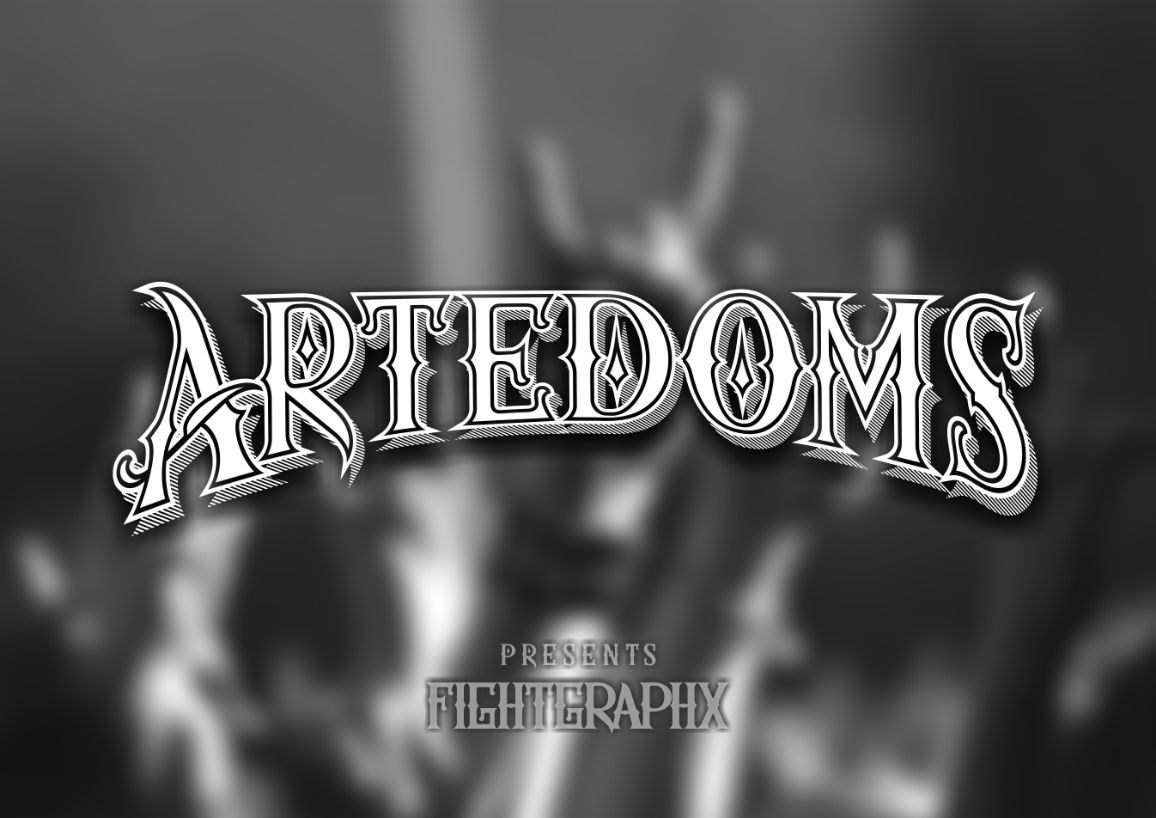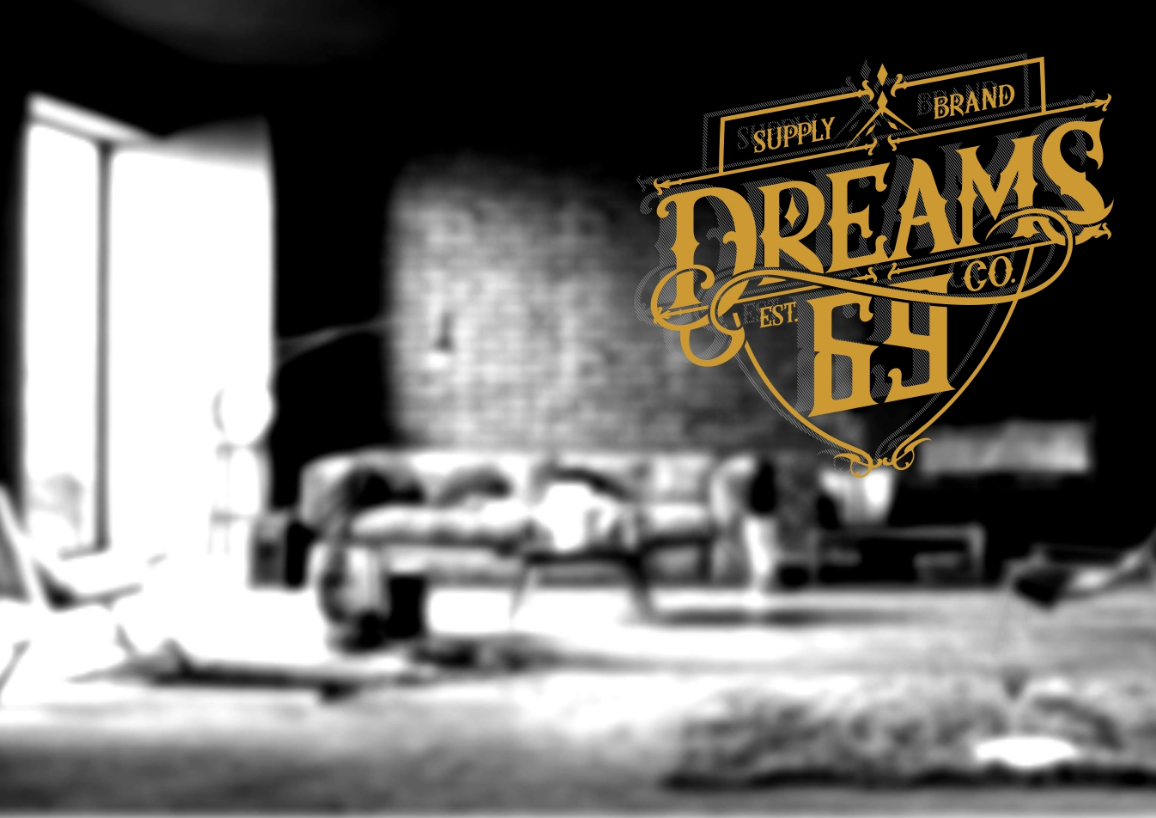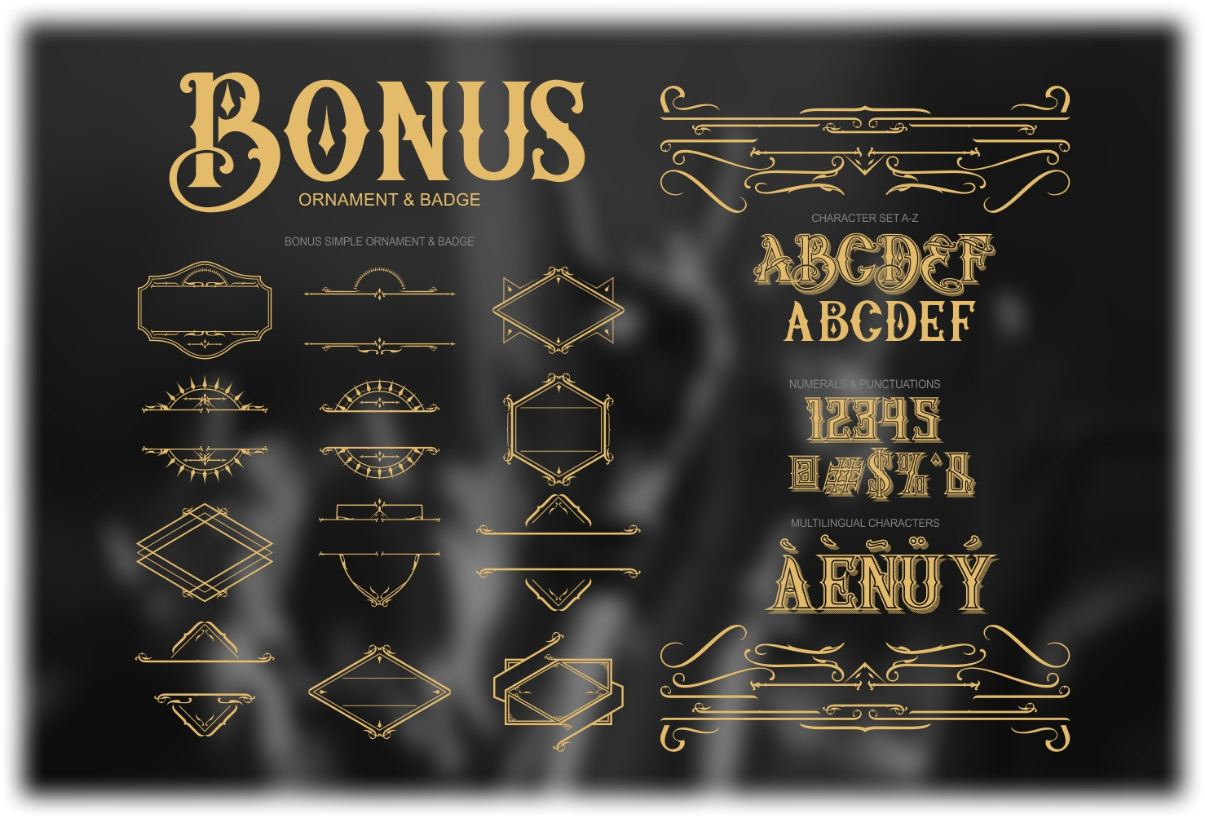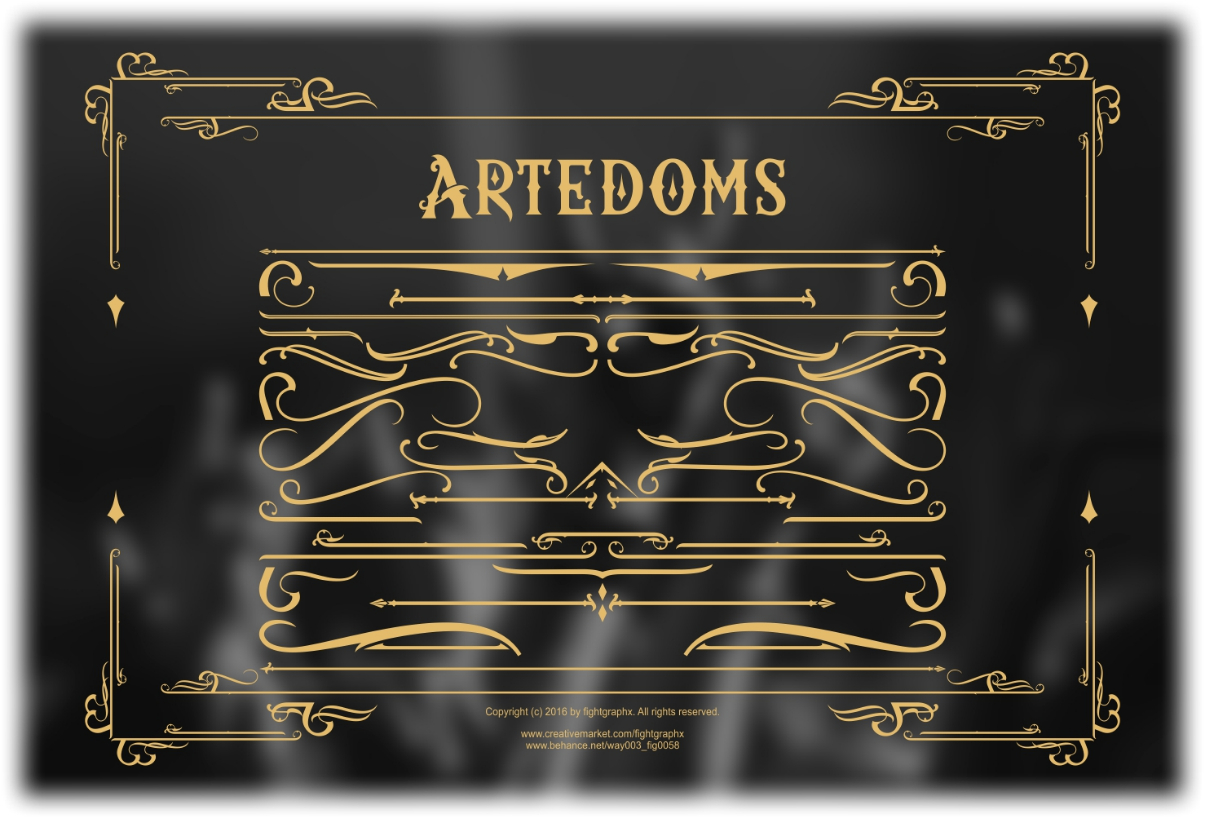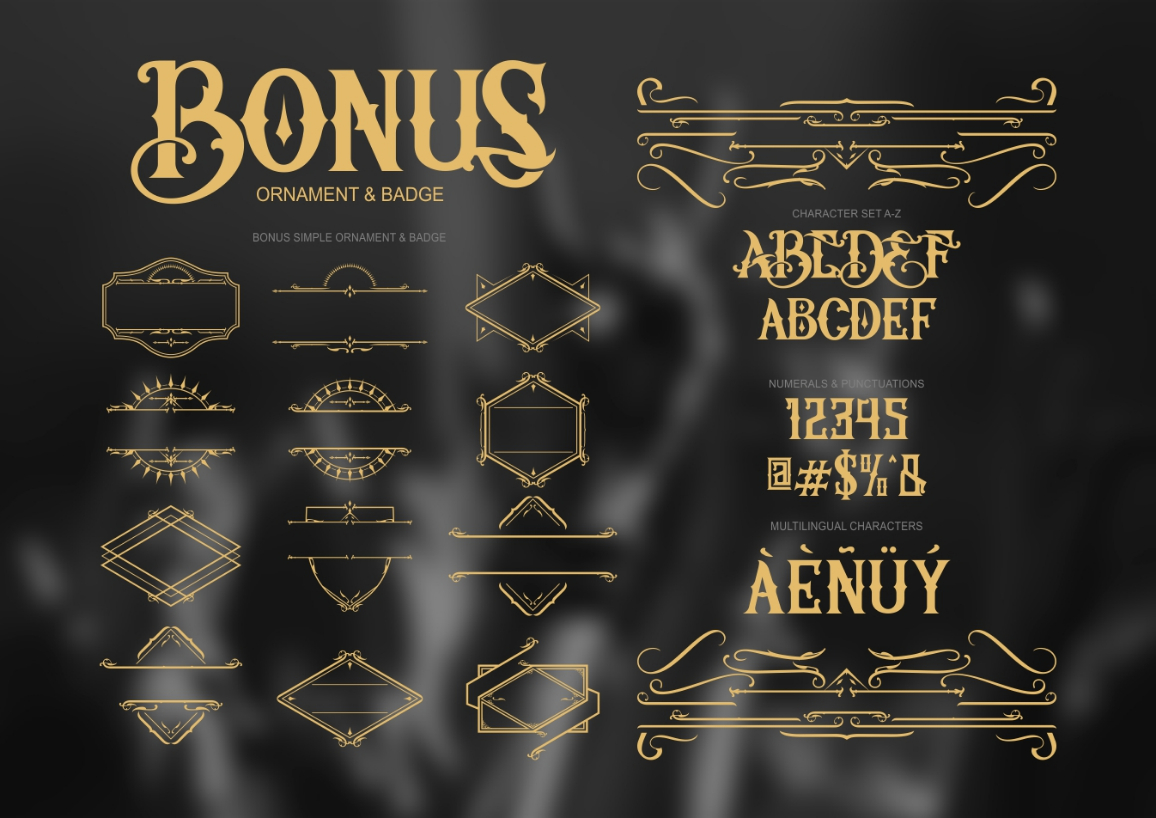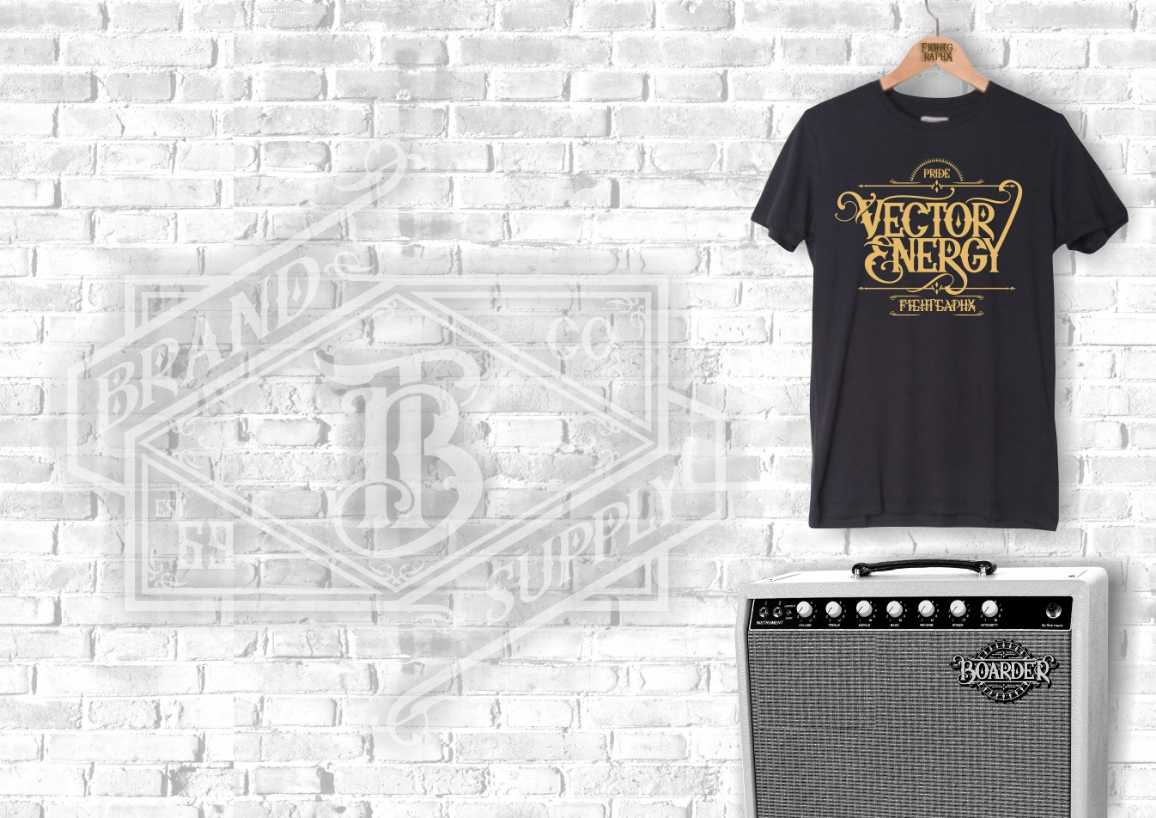
Artedoms Font
About Artedoms Font
The Artedoms is a new font with a classy, elegant and vintage feel character set. It’s suitable for any project that requires a medieval feel such as logos, greeting cards, posters, clothing, book covers, and much more!